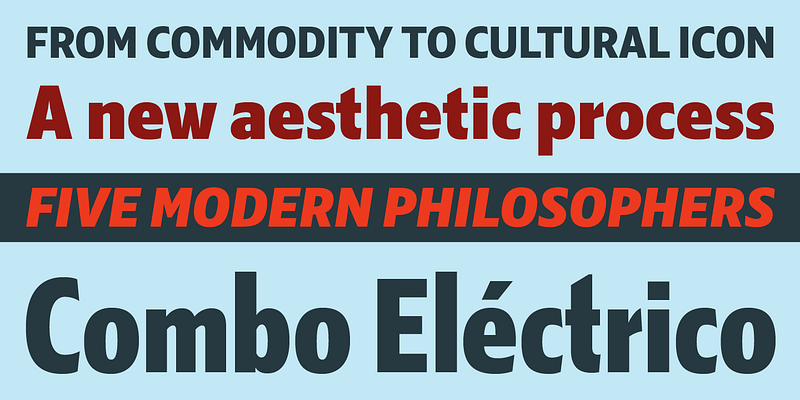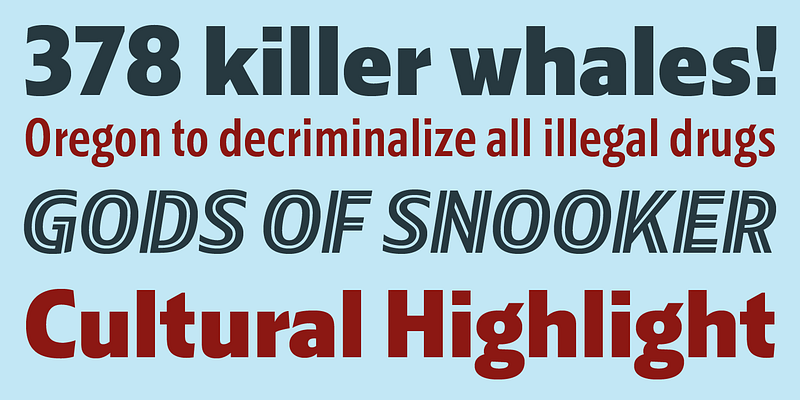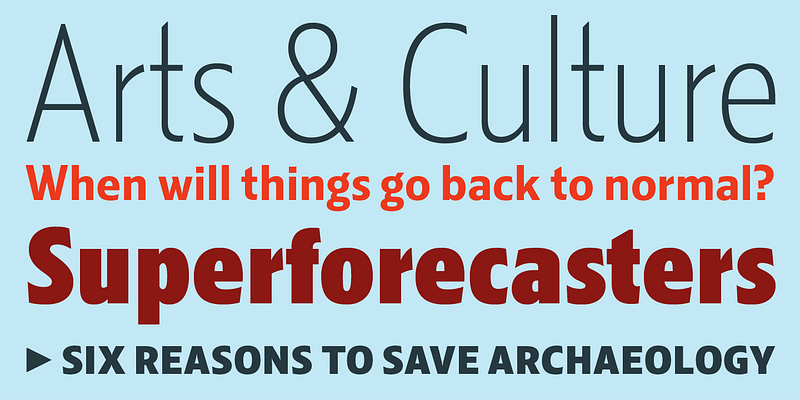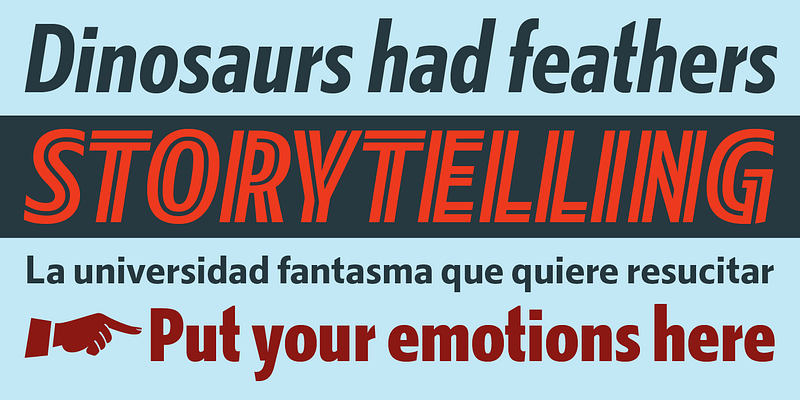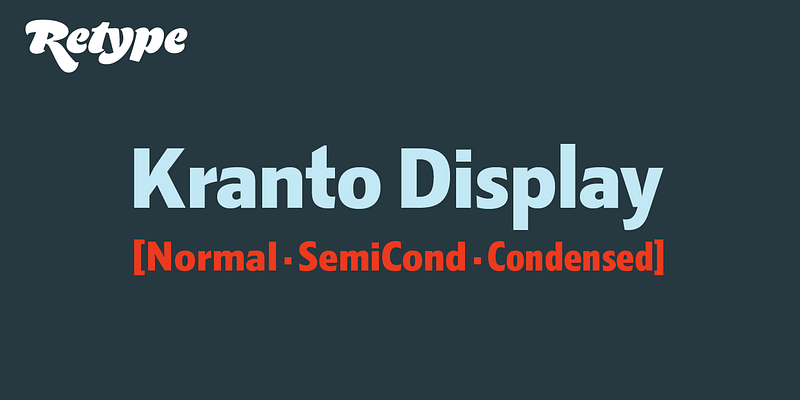
Brimming with subtly original design details, Kranto is a solid, trustworthy, and readable typeface that strives for objectivity and neutrality, making it an ideal choice not only for a broad assortment of corporate, editorial, and digital jobs, but also for environmental uses like signage and wayfinding systems. Kranto is a sans serif superfamily of 144 styles designed by Ramiro Espinoza, drawing inspiration from a group of mainly British and German grotesque typefaces from the first half of the twentieth century. Composed of three widths—Normal, Semi Condensed, and Condensed, each in seven weights from Thin to Black. For maximum typesetting and typographic flexibility, each weight is available in three different x-heights: Text, Normal, and Display. Its extensive character set includes fractions, case-sensitive forms, arrows, ordinals, icons, and tabular figures. In addition to Western European languages, it also supports Central European, Baltic, and Turkic languages.